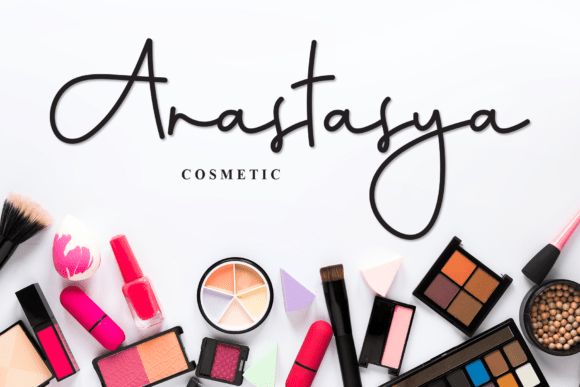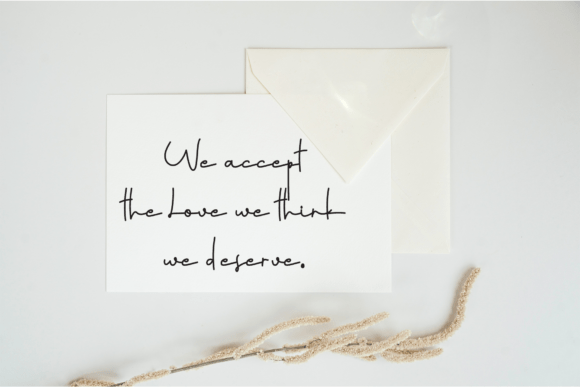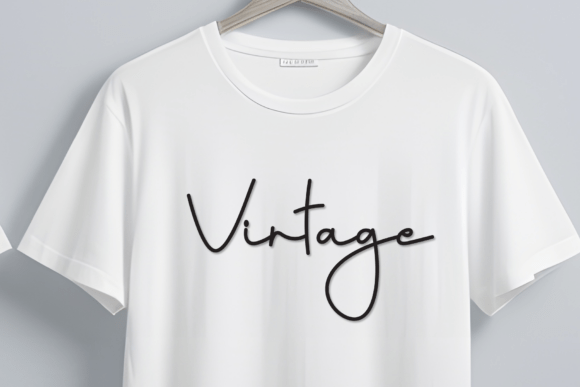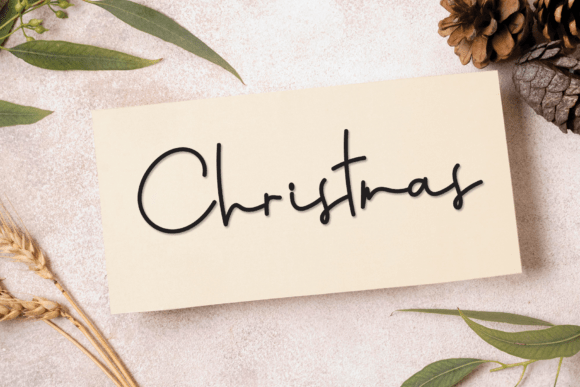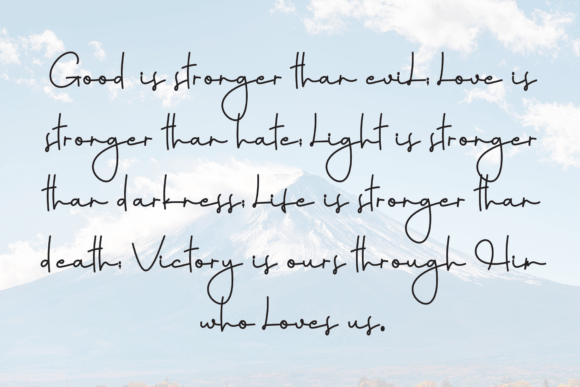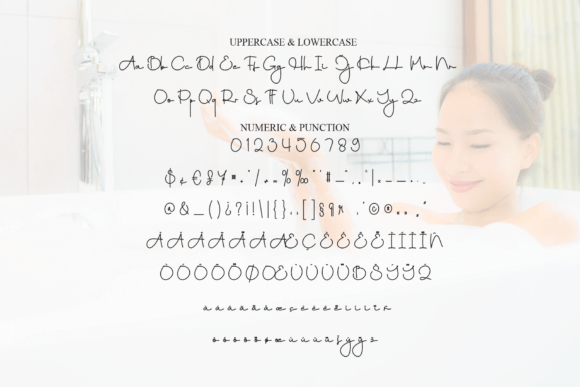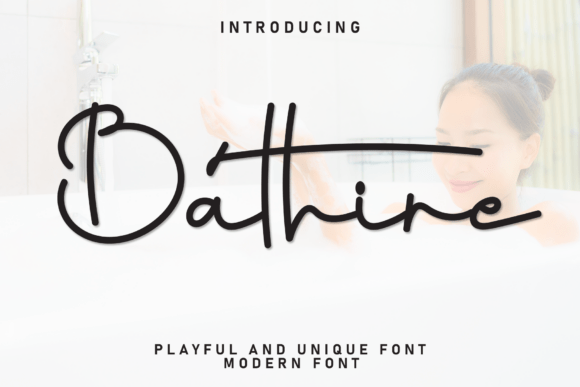
Introducing Bathine Font: Elevate Your Designs with a Playful and Unique Modern Twist
In the world of design, fonts play a crucial role in conveying the tone and personality of a brand or creative project. If you’re on the hunt for a typeface that combines the warmth of handwriting with the sophistication of modern design, look no further than Bathine Font. This innovative font is specifically crafted to bring a touch of playfulness and uniqueness to your designs, making it an ideal choice for fashion branding, lifestyle photography watermarks, modern stationery, and home decor designs.
The Perfect Balance of Style and Character
Bathine Font strikes the perfect balance between the intimacy of handwriting and a clean, contemporary aesthetic. Its expressive flow and fluid strokes bring a sense of effortless style and character to any design, making it perfect for creative projects that demand a personal touch. Whether you’re crafting a chic brand identity, designing trendy apparel, or creating standout social media graphics, Bathine Font is the perfect companion to help your message shine.
Ideal for Fashion Branding and Lifestyle Designs
Fashion branding and lifestyle designs require a font that exudes style, sophistication, and a touch of playfulness. Bathine Font fits the bill perfectly, with its modern and trendy aesthetic that’s sure to elevate your designs. Use it to create stunning brand identities, eye-catching apparel designs, or beautiful lifestyle photography watermarks that add a touch of personality to your visuals.
Perfect for Modern Stationery and Home Decor Designs
Modern stationery and home decor designs demand a font that’s both clean and characterful. Bathine Font meets these requirements with ease, offering a unique and playful take on modern typography. Use it to create beautiful stationery sets, stylish home decor designs, or even trendy wall art that adds a touch of personality to any room.
Key Features of Bathine Font
- Playful and Unique Design: Bathine Font boasts a playful and unique design that’s perfect for creative projects that demand a personal touch.
- Modern Aesthetic: Its clean and contemporary aesthetic makes it perfect for modern designs that require a touch of sophistication.
- Expressive Flow: The font’s expressive flow and fluid strokes bring a sense of effortless style and character to any design.
- Versatile: Bathine Font is versatile and can be used for a wide range of design projects, from fashion branding to home decor designs.
Why Choose Bathine Font?
With so many fonts available, why choose Bathine Font? Here are just a few reasons why designers and crafters love this innovative typeface:
- Easy to Read: Despite its playful design, Bathine Font is easy to read, making it perfect for body text and captions.
- Highly Versatile: The font’s versatility makes it perfect for a wide range of design projects, from digital designs to print materials.
- Unique and Memorable: Bathine Font’s unique design ensures that your message stands out from the crowd and leaves a lasting impression.
Get Creative with Bathine Font
Ready to elevate your designs with Bathine Font? Here are some creative ways to use this innovative typeface:
- Fashion Branding: Use Bathine Font to create stunning brand identities that exude style and sophistication.
- Lifestyle Photography Watermarks: Add a touch of personality to your lifestyle photography with Bathine Font’s unique and playful design.
- Modern Stationery: Create beautiful stationery sets that showcase your personal style with Bathine Font.
- Home Decor Designs: Use Bathine Font to create trendy home decor designs that add a touch of personality to any room.
In conclusion, Bathine Font is a playful and unique modern font that’s perfect for designers and crafters looking to elevate their designs. Its expressive flow, clean aesthetic, and versatility make it an ideal choice for a wide range of creative projects. So why wait? Get creative with Bathine Font today and bring a touch of effortless style and character to your designs!